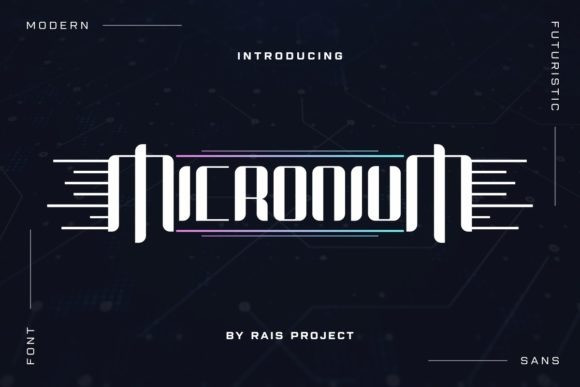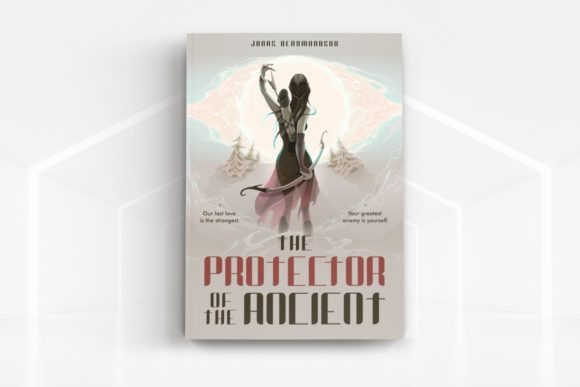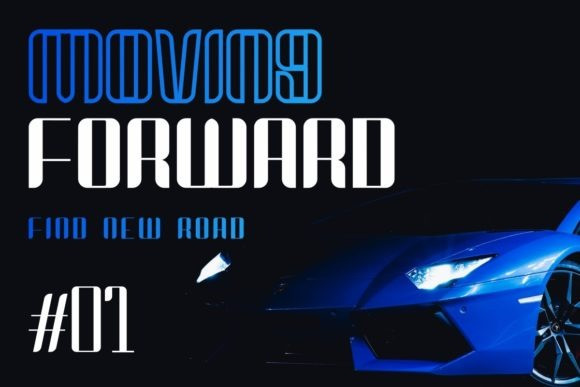
Micronium Font
Micronium is a techno and modern looking display font. Add it for each of your designs related to business, gaming, technology and so on.